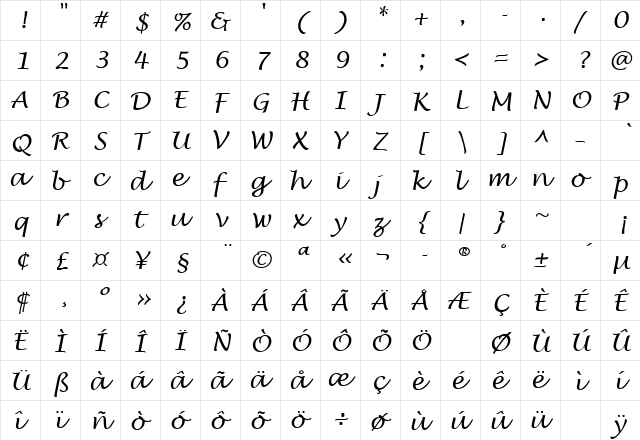
LOWTIDE Regular
Design Context for LOWTIDE Typeface
LOWTIDE takes a measured approach to typography — its balanced proportions and neutral character make it a reliable workhorse for both digital and print work.